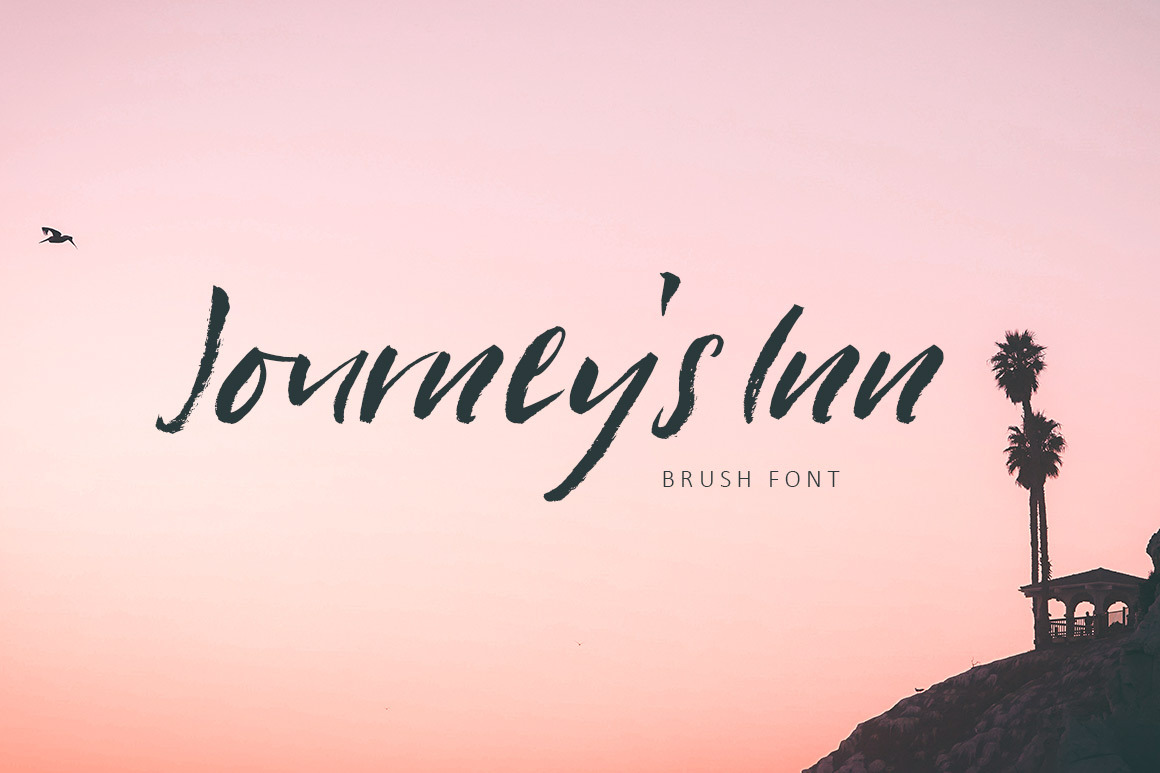
Journey's Inn Font
Introducing Journey's Inn brush font.
This is a hand brushed font perfect for quotes, logos, invites, cards, and much more.
International Characters included.